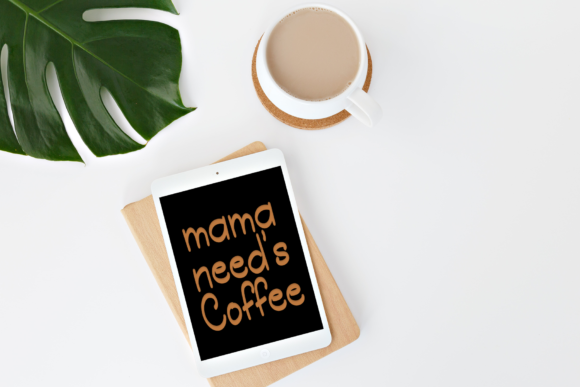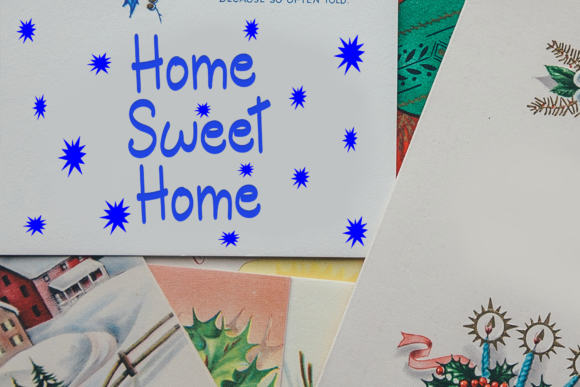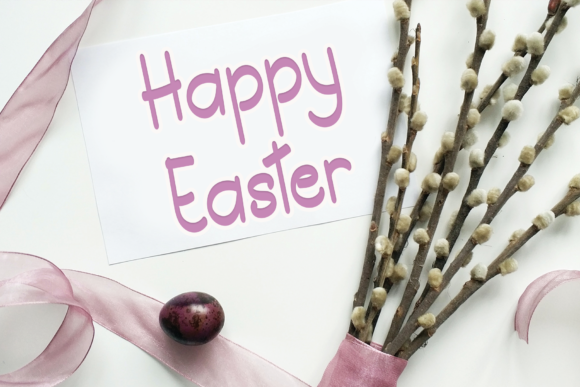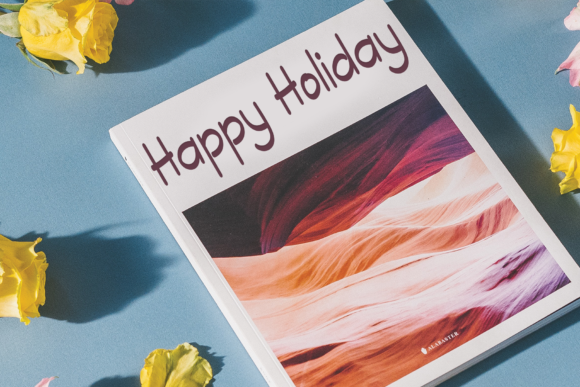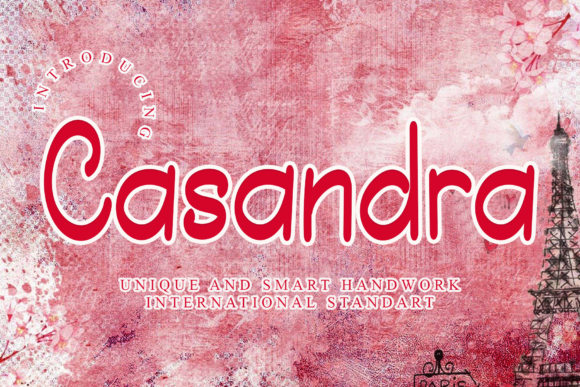
Casandra Font: The Sweet and Friendly Handwritten Font for Your Designs
Are you looking for a font that can add a personal touch to your designs? Look no further than Casandra Font, a sweet and friendly handwritten font that is perfect for a wide range of design projects. With its natural and unique style, Casandra Font is incredibly fitting for designs that require a touch of warmth and personality.
What is Casandra Font?
Casandra Font is a beautiful handwritten font that is designed to bring a sense of friendliness and approachability to your designs. Its unique and natural style makes it perfect for designs that require a personal touch, such as invitations, greeting cards, and social media graphics.
Key Features of Casandra Font
- Handwritten style: Casandra Font has a beautiful handwritten style that is perfect for designs that require a personal touch.
- Unique and natural: The font has a unique and natural style that makes it stand out from other fonts.
- Sweet and friendly: Casandra Font is designed to be sweet and friendly, making it perfect for designs that require a warm and approachable feel.
- Highly versatile: The font is highly versatile and can be used for a wide range of design projects, from invitations and greeting cards to social media graphics and more.
Who is Casandra Font for?
Casandra Font is perfect for designers and crafters who are looking for a font that can add a personal touch to their designs. Whether you’re designing invitations, greeting cards, or social media graphics, Casandra Font is a great choice. The font is also perfect for:
- Stationery designers: Casandra Font is perfect for designers who create stationery, such as notebooks, journals, and planners.
- Paper crafters: The font is also great for paper crafters who create handmade cards, invitations, and other paper crafts.
- Social media designers: Casandra Font is perfect for designers who create social media graphics, such as Facebook posts, Instagram graphics, and Twitter headers.
How to Use Casandra Font
- Pair with other fonts: Casandra Font pairs well with other fonts, such as sans serif fonts and script fonts.
- Use for headings and body text: The font is perfect for both headings and body text, making it a great choice for designs that require a lot of text.
- Experiment with colors: Casandra Font looks great in a variety of colors, so don’t be afraid to experiment and find the perfect color for your design.
Benefits of Using Casandra Font
There are many benefits to using Casandra Font in your designs. Here are a few:
- Adds a personal touch: Casandra Font adds a personal touch to your designs, making them more relatable and engaging.
- Increases readability: The font is highly readable, making it perfect for designs that require a lot of text.
- Versatile: Casandra Font is highly versatile and can be used for a wide range of design projects.
In conclusion, Casandra Font is a beautiful handwritten font that is perfect for designers and crafters who are looking for a font that can add a personal touch to their designs. With its unique and natural style, Casandra Font is incredibly fitting for a wide range of design projects. Whether you’re designing invitations, greeting cards, or social media graphics, Casandra Font is a great choice.